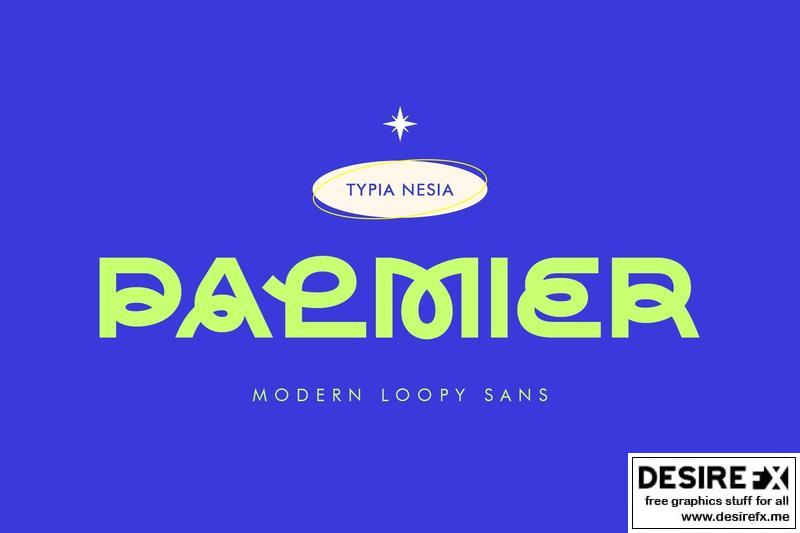
Palmier – Modern and Bold Loopy Sans Serif MZJAYQT
Palmier is a Modern and Bold Loopy Sans Serif
Fashion Advertising Branding – Agency Logo Display Font
Palmier Font is perfect for your up coming projects. Such as logo branding, editorial design, sport design, game / gaming industry, music cover and poster, website design, modern advertising design, modern poster quote, book / magazine cover title, special events and any more.